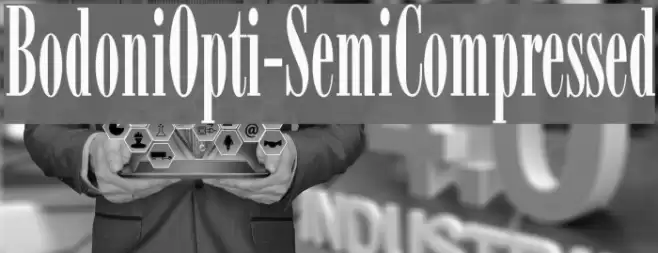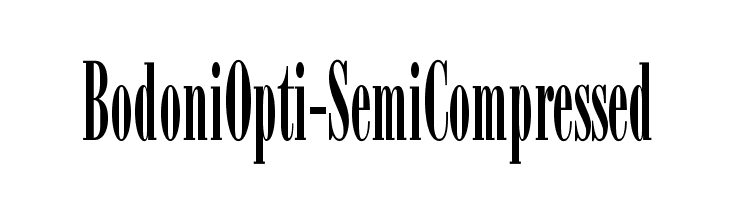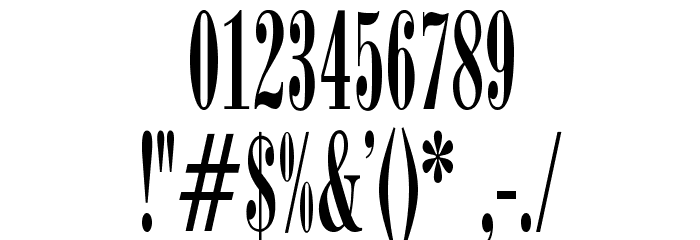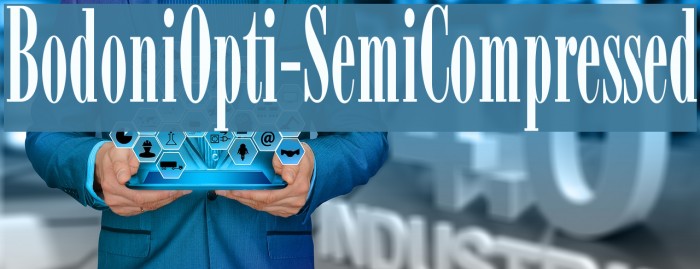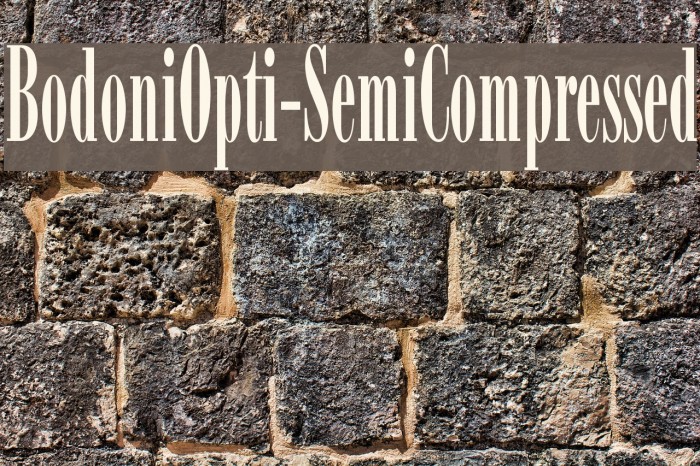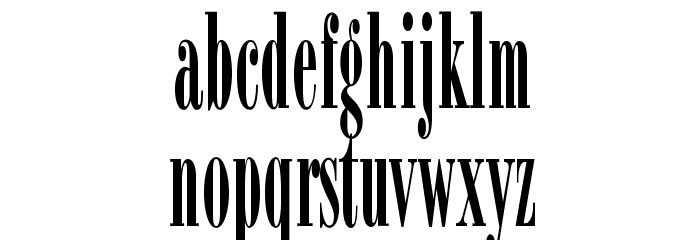
BodoniOpti-SemiCompressed Font
BodoniOpti-SemiCompressed Description
This font exhibits a classic and elegant style with high contrast between thick and thin strokes, characteristic of the Didone classification. The semi-compressed width gives it a refined and sophisticated appearance, making it suitable for formal and high-end design projects. The uppercase letters are tall and commanding, while the lowercase letters maintain a consistent style with slightly rounded edges. The numerals are proportionate and align well with the overall aesthetic. Special characters are designed with the same attention to detail, ensuring a cohesive look across all glyphs.
A classic, high-contrast serif font with a semi-compressed style from Uncategorized fonts.
- Proposed Projects: Ideal for luxury branding, editorial design, fashion magazines, and elegant invitations.
- Overall Style: Classic